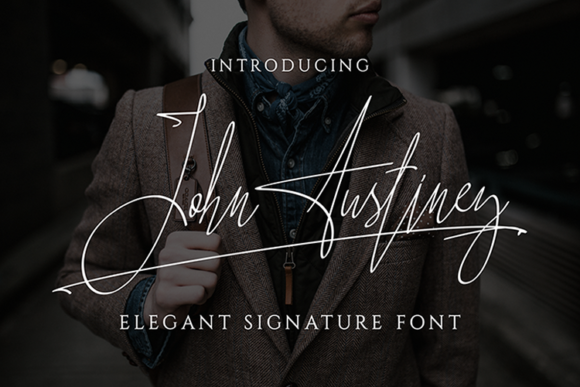
Introducing John Austiney Font: A Timeless Journey Through Elegance
In a world of monotonous fonts, John Austiney emerges as a radiant beacon of sophistication—a script font that transcends the ordinary, transforming your designs into captivating works of art. Its bold strokes, reminiscent of timeless classics, add a touch of luxury to any project, leaving a lasting impression that lingers in the minds of your audience.
With John Austiney, you'll embark on a journey through elegance, discovering hidden depths of creativity and unlocking the true potential of your design endeavors. Its meticulously crafted characters dance across the canvas, evoking a sense of timeless beauty that captivates and mesmerizes.
Unleash Your Inner Artist with John Austiney
John Austiney is more than just a font; it's an invitation to unleash your inner artist, to explore the boundless realms of creativity and express yourself in ways you never thought possible. Its versatility knows no bounds, seamlessly adapting to a myriad of design projects, from elegant wedding invitations to captivating logos that command attention.
With John Austiney at your disposal, you'll find yourself immersed in a world of endless possibilities, where every stroke of your creative genius comes to life with unparalleled beauty and finesse. Let your imagination soar as you witness the transformation of your designs into masterpieces that leave a lasting legacy.
A Legacy of Elegance and Distinction
Crafted with meticulous precision by the renowned Cikareotype, John Austiney carries a legacy of elegance and distinction that shines through in every detail. Its bold lines and graceful curves harmoniously blend, creating a visual symphony that captivates the senses.
Experience the transformative power of John Austiney as it elevates your designs to new heights, leaving an indelible mark on the minds of your audience. Let your creativity flourish as you embrace the timeless allure of this extraordinary font, and watch as your projects blossom into works of art that stand the test of time.